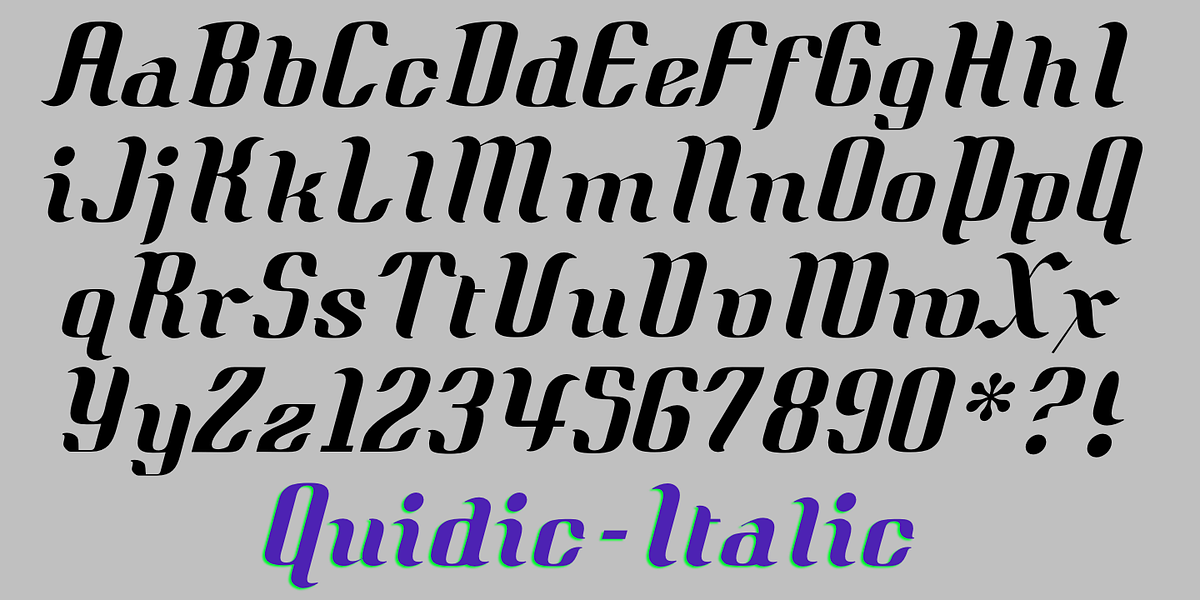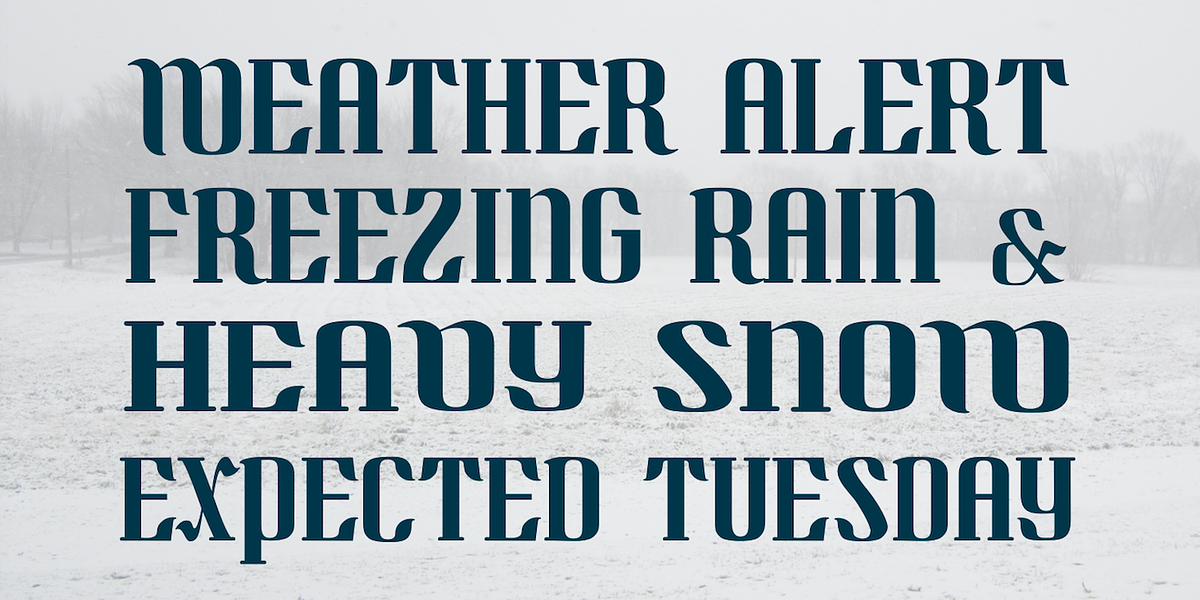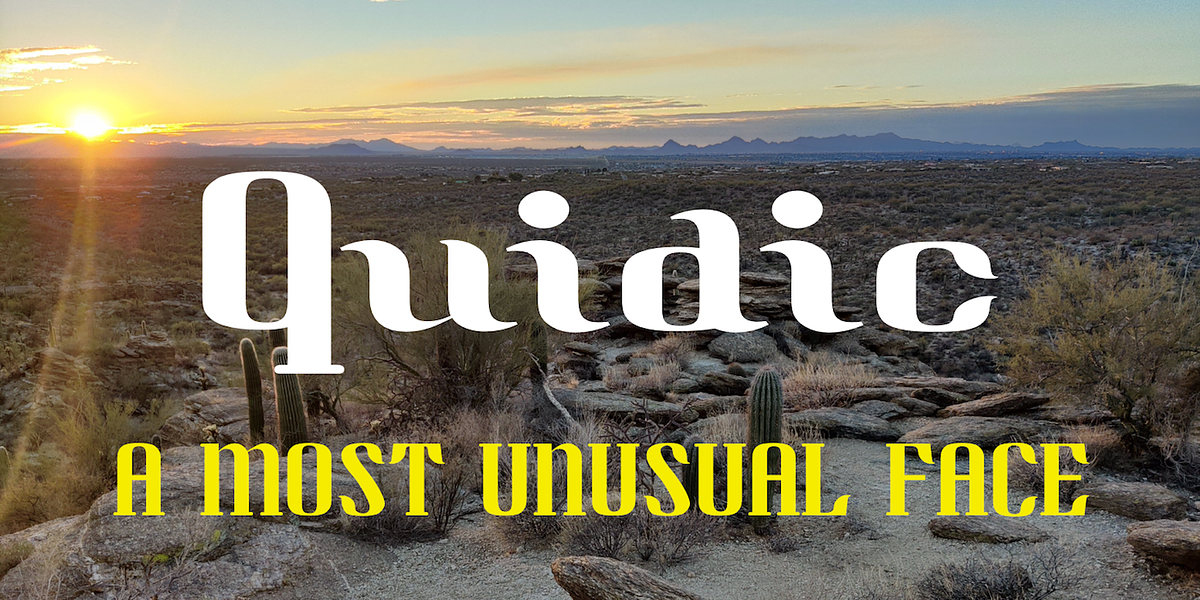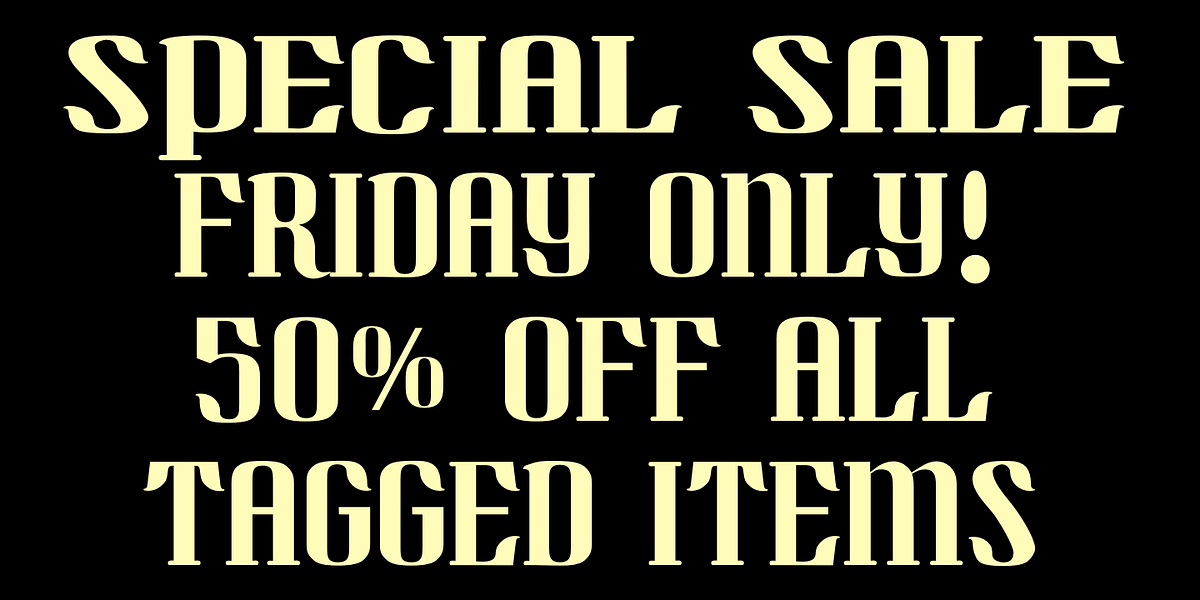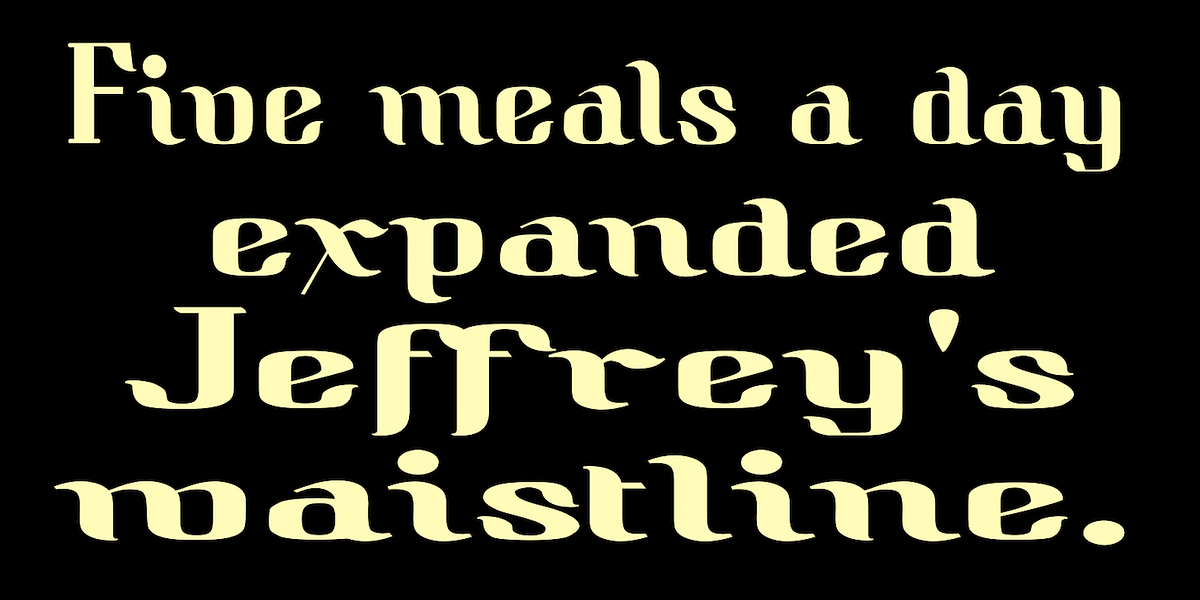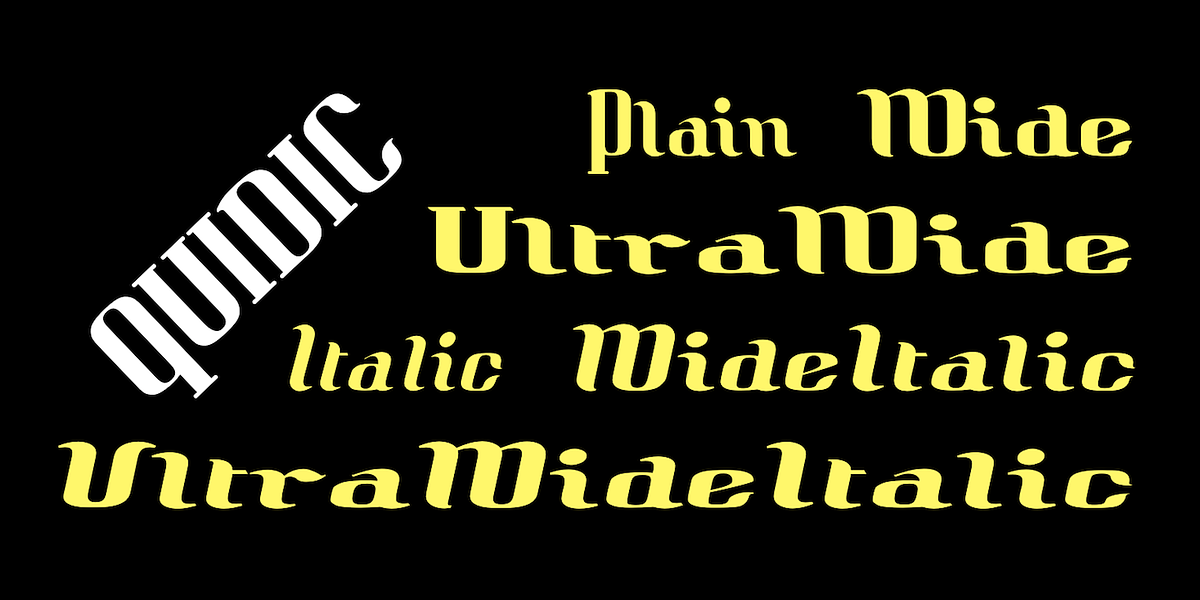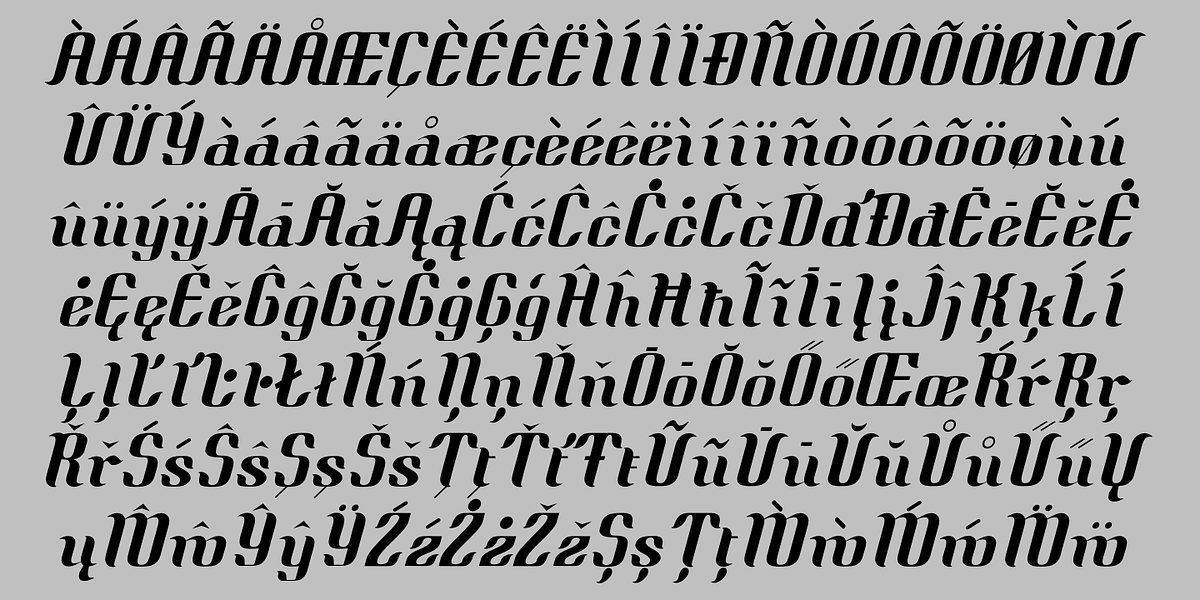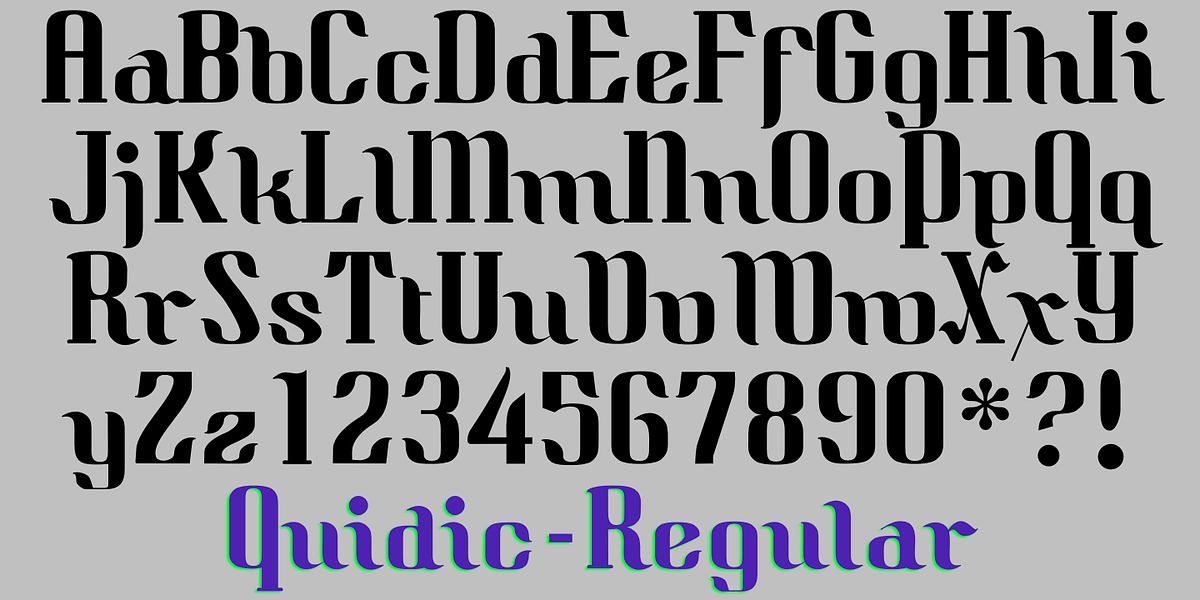
Quidic
Quidic is a distinctive display serif typeface characterized by its bold and condensed uppercase letters. The lowercase letters have a unique italic style, deviating from the typical serifs found in uppercase. This unconventional pairing creates a visually striking effect, making Quidic well-suited for headlines and titles. The family offers three styles that vary primarily in width rather than weight.